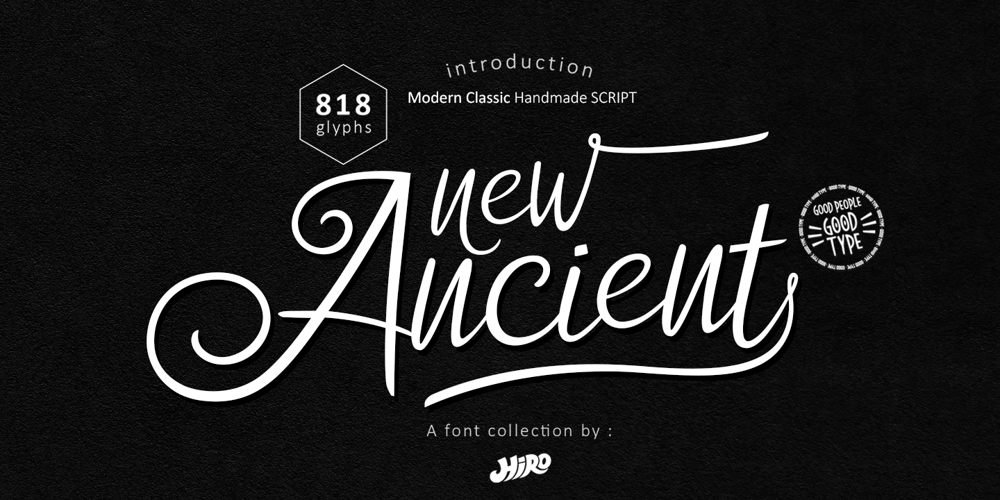
New Ancient
New Ancient font
New Ancient Font Family was designed by Chairul Ashar and published by HIRO.std. New Ancient contains 1 styles and family package options. New Ancient is a Modern Classic Handmade Script.New Ancient has more than 818 Glyphs, with (82 Glyphs Uppercase), (427 Glyphs Lowercase and 65 Glyphs Ligatures.This font template contains Modern Classic, Classy, Elegant, readable, stylish, cool, catchy and easy to use.FEATURES – Ligatures- Stylistic Alternates- Stylistic Set- Uppercase and Lowercase letters- Numbering and Punctuations- Multilingual Support- Works on PC or Mac- Simple InstallationHope you like it.thanks.HIRO.std